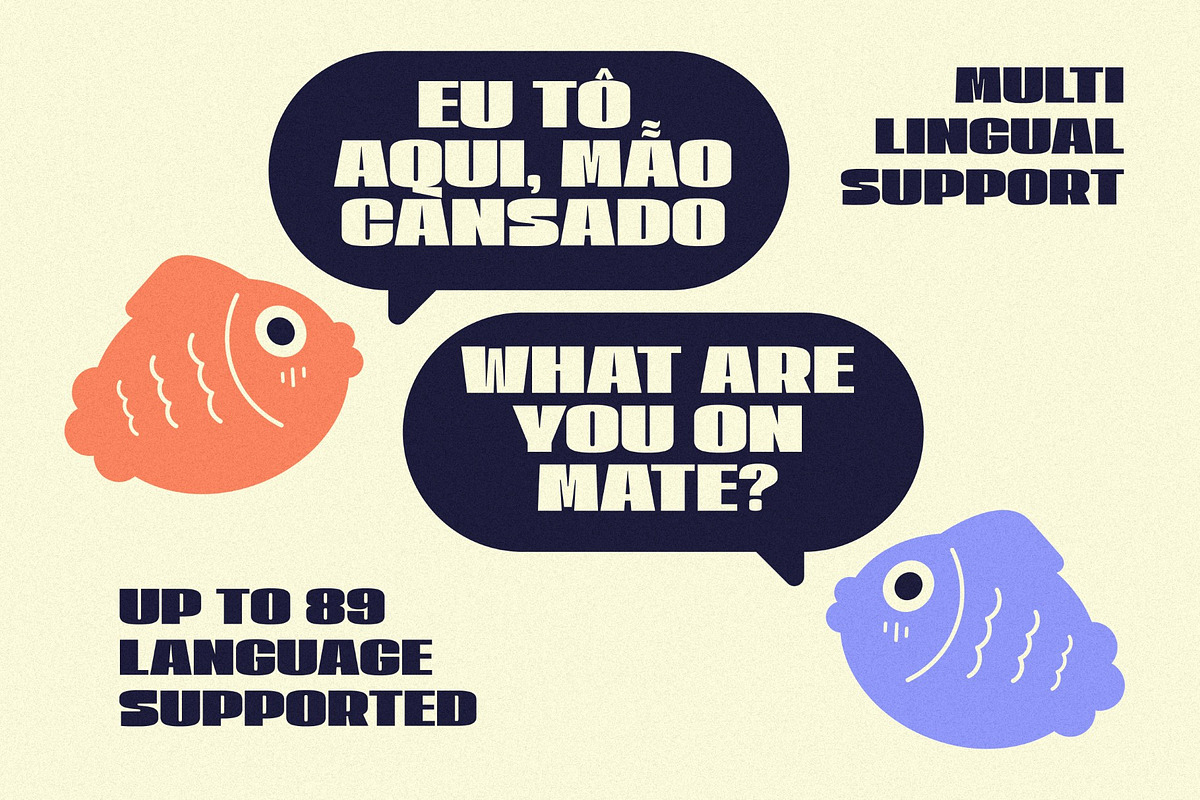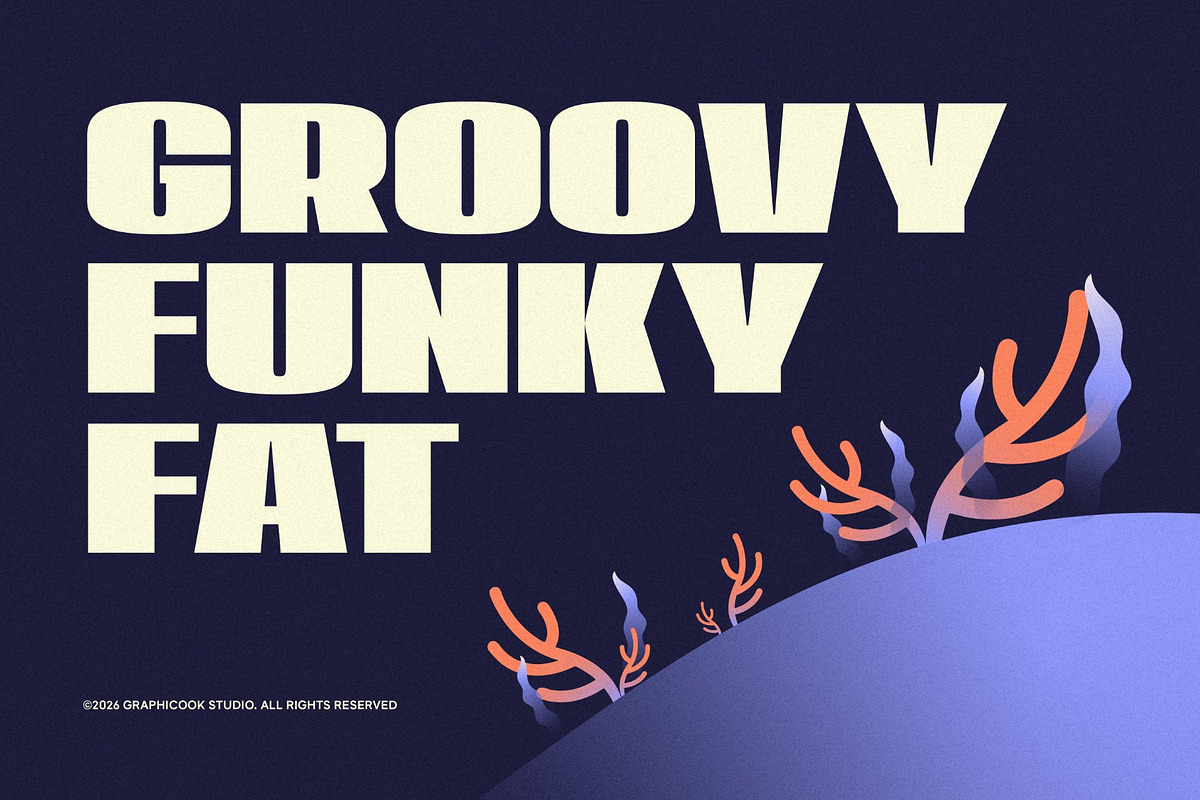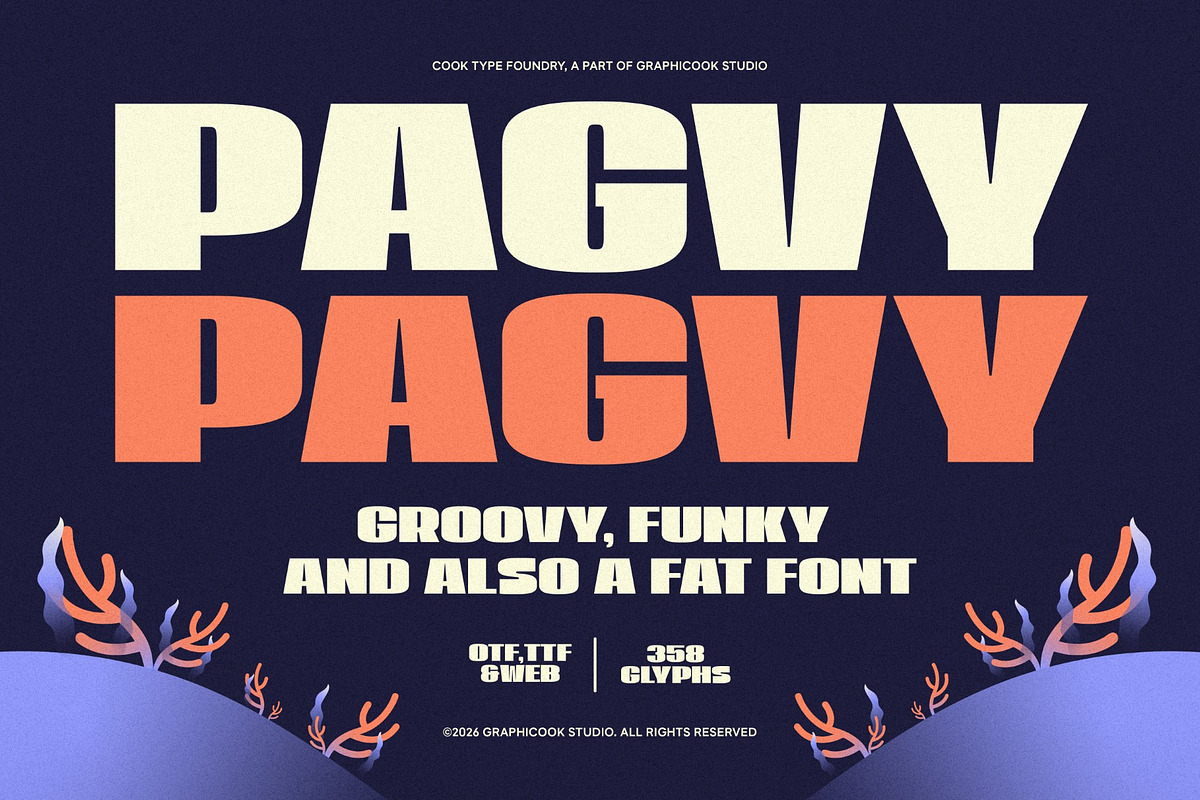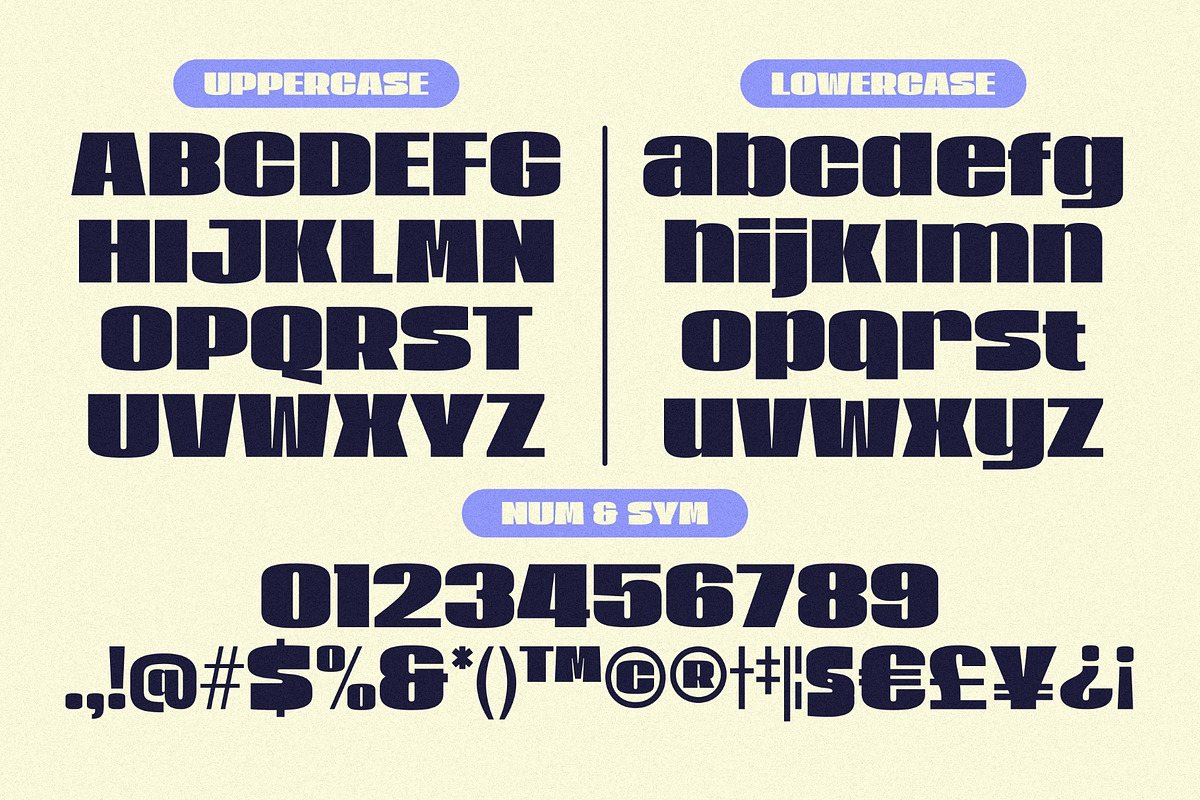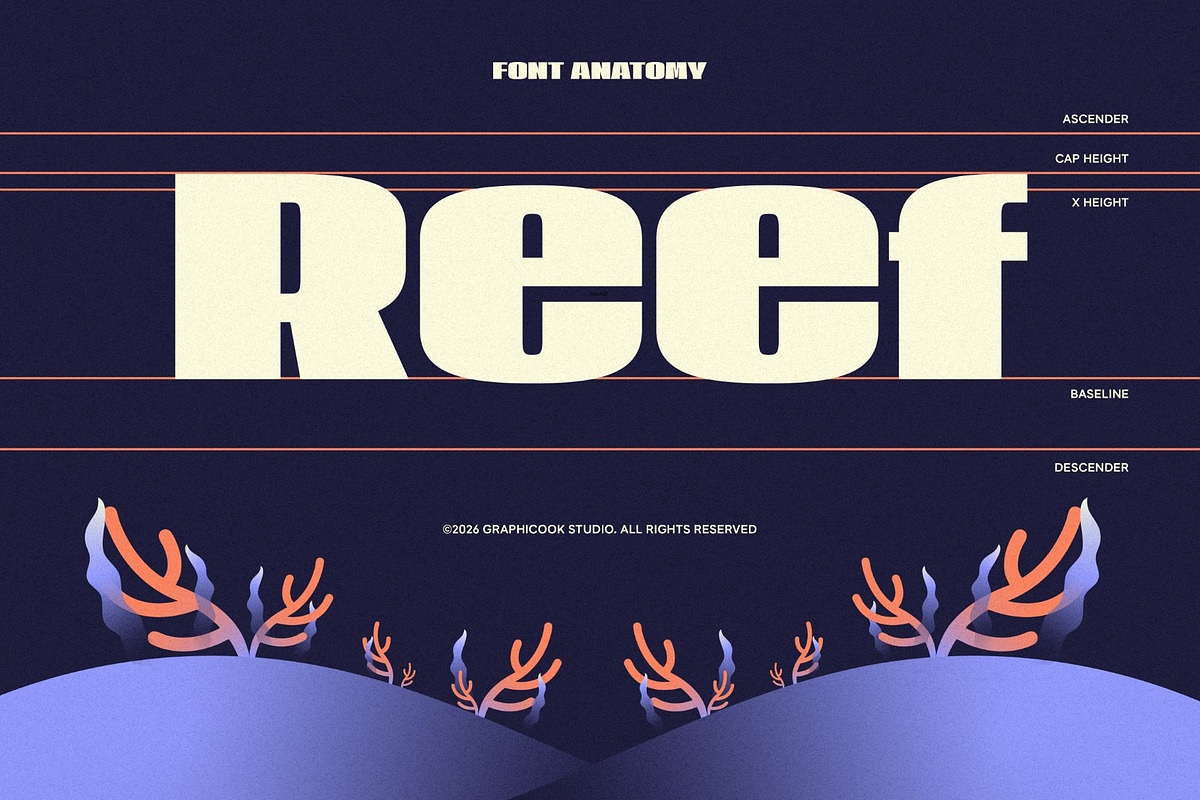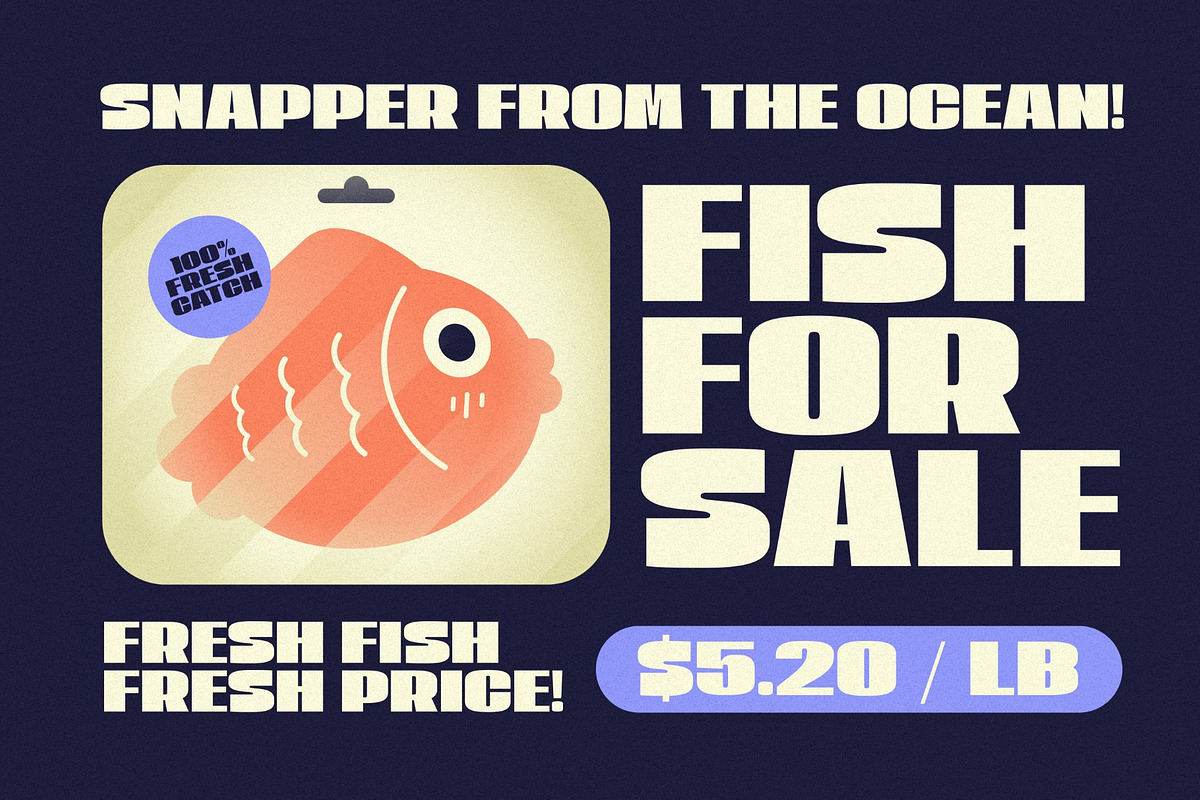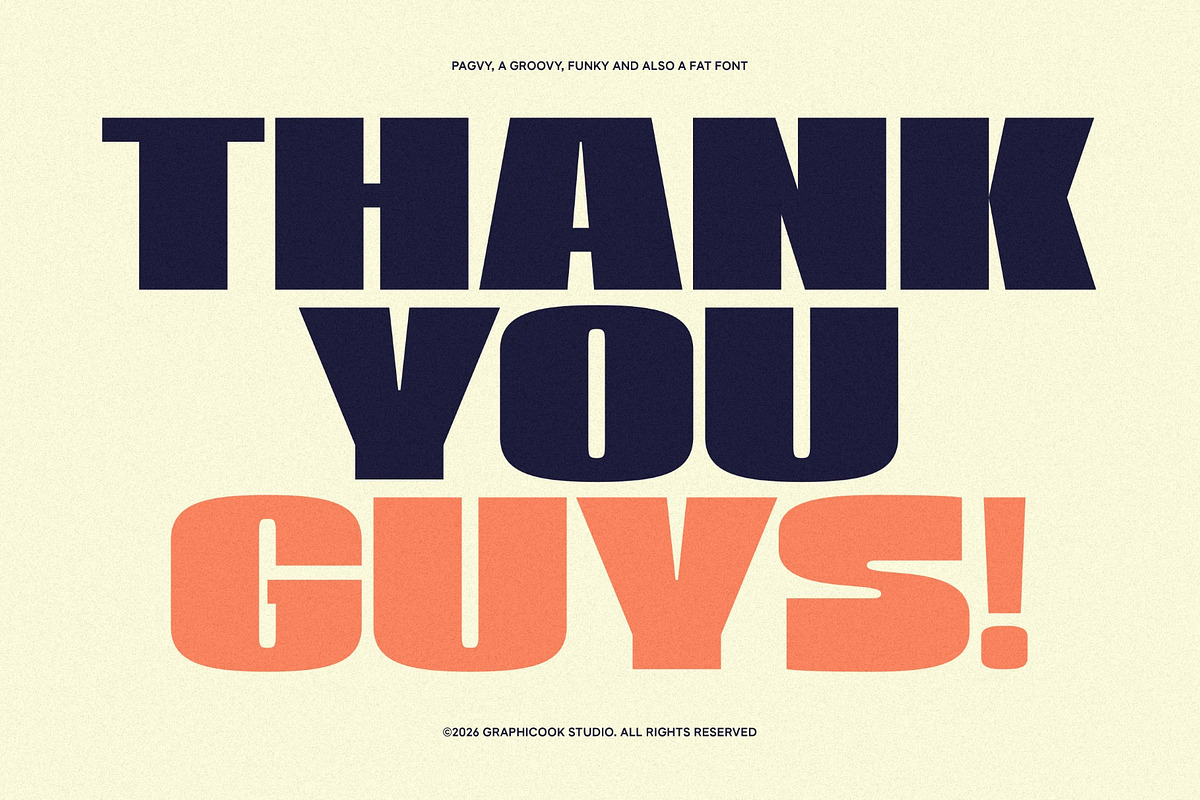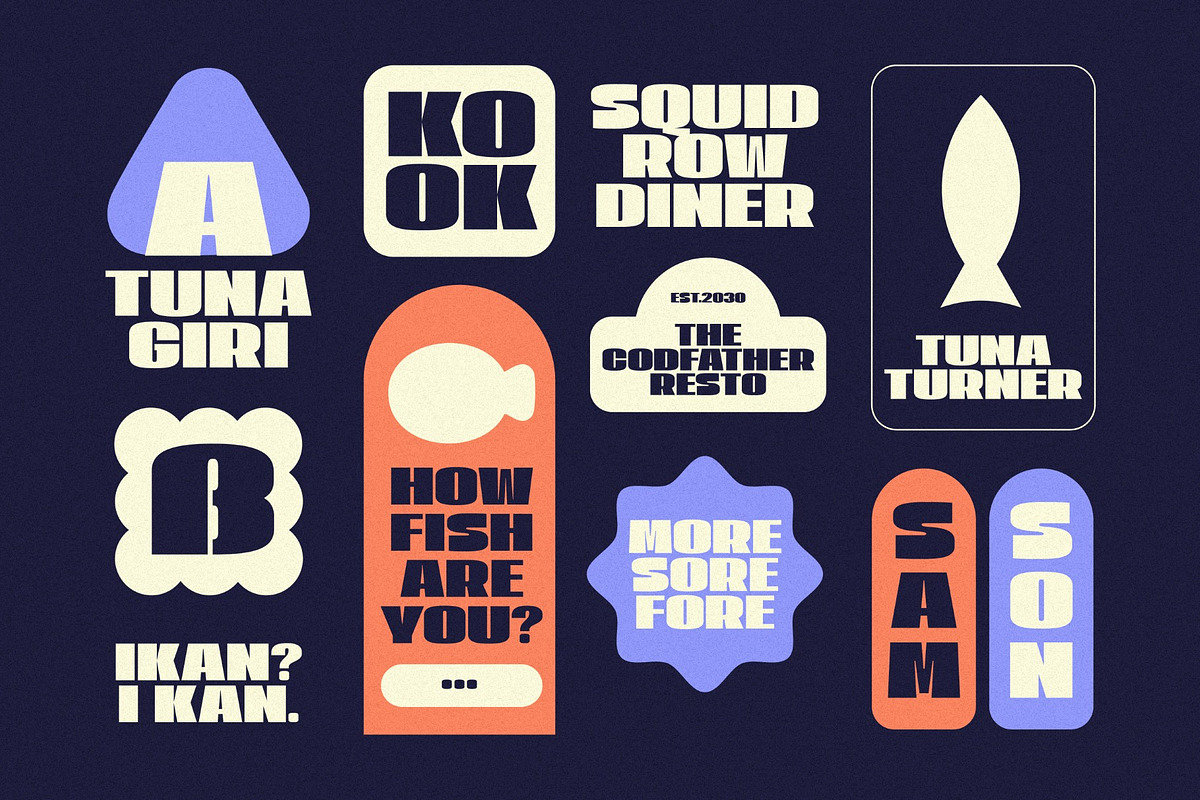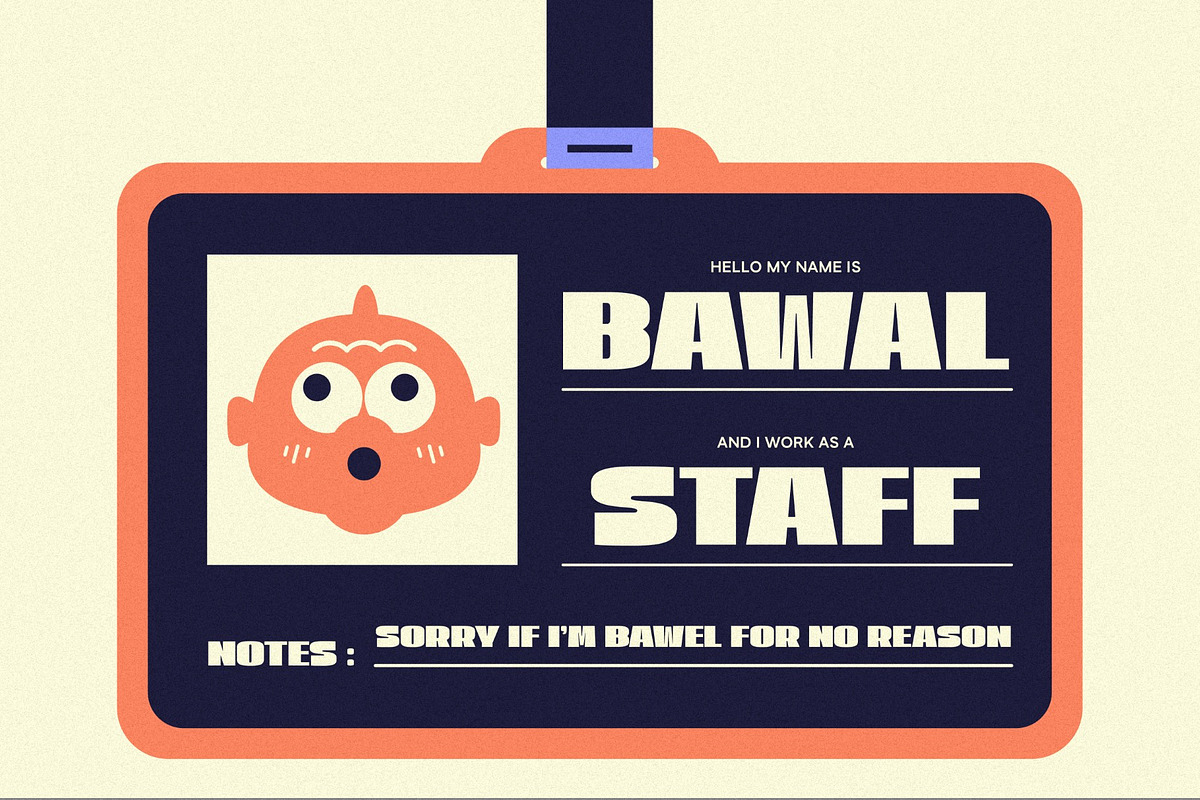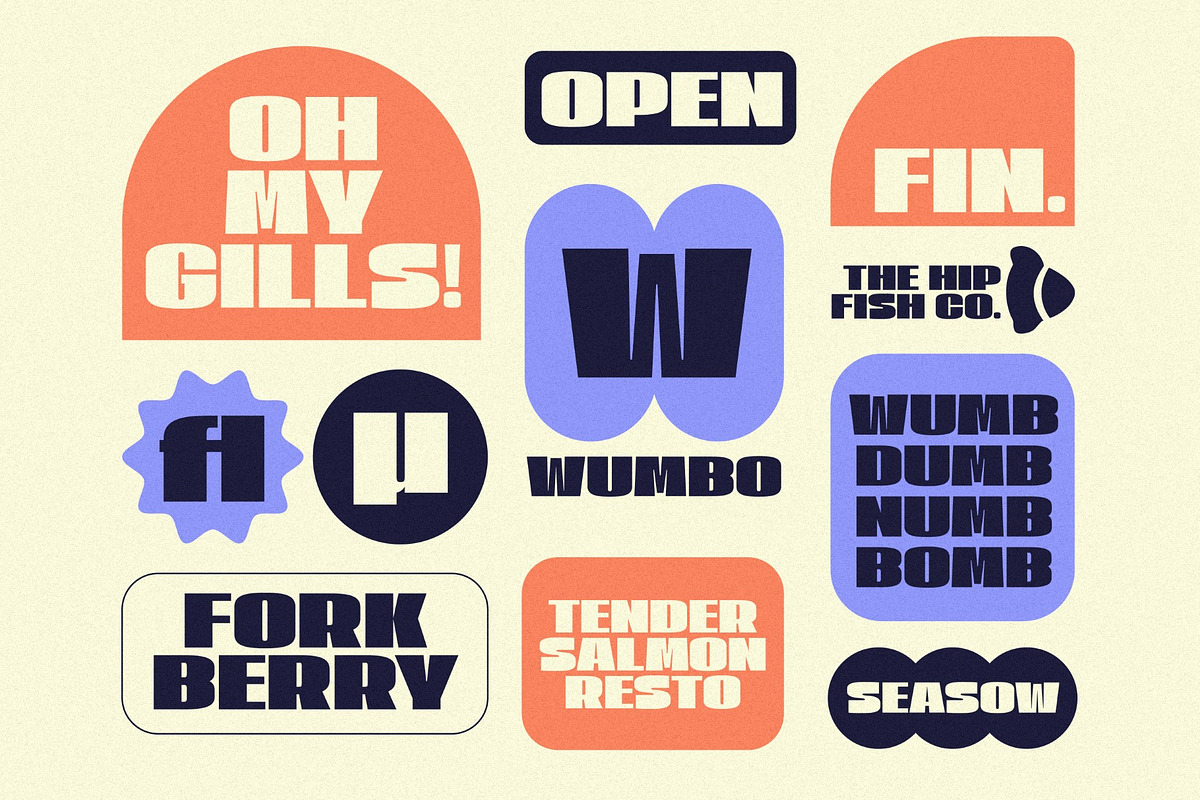
Pagvy
Pagvy is a bold groovy display typeface that delivers a funky retro feel through wide, confident letterforms. Its strong silhouette and solid proportions immediately capture attention, making it ideal for expressive designs that aim to stand out.
It is perfect for headlines, logotypes, magazines, packaging, quotes, movies, games, cover albums, book covers, and flyers, it's a perfect solution for creating eye-catching designs that stand out in any context.